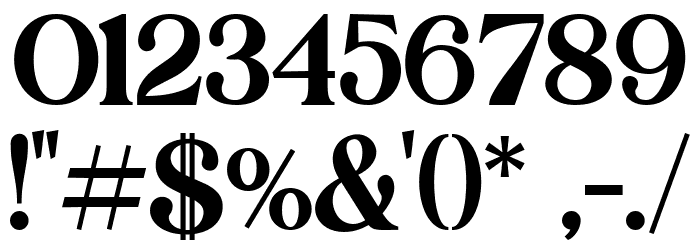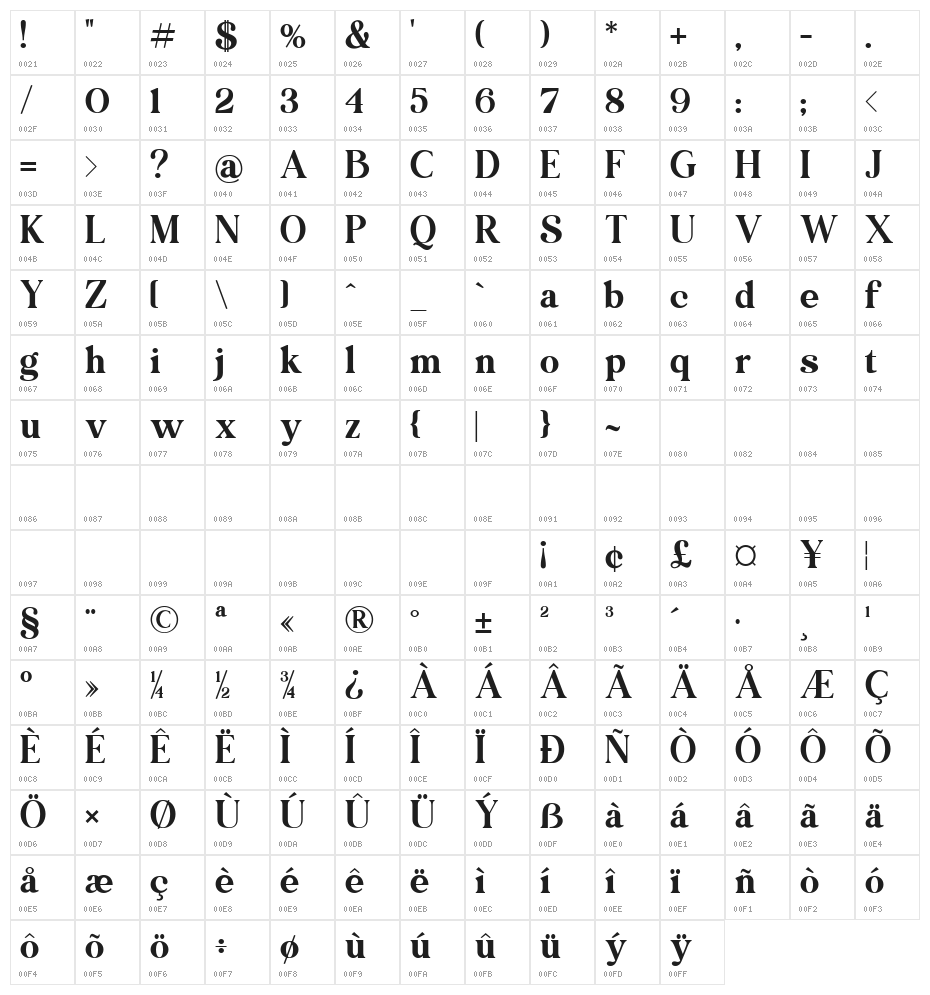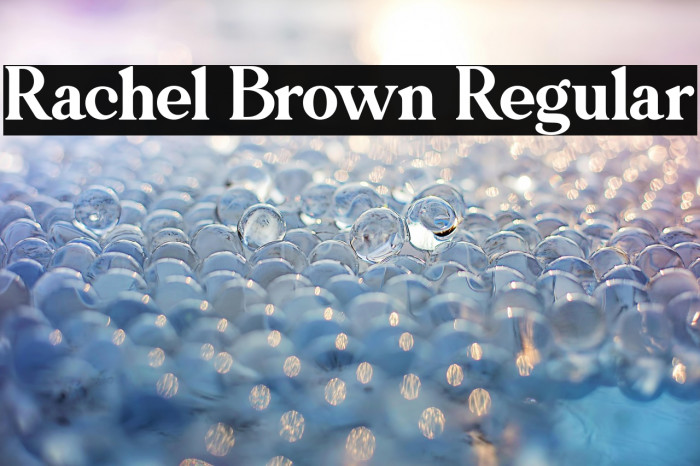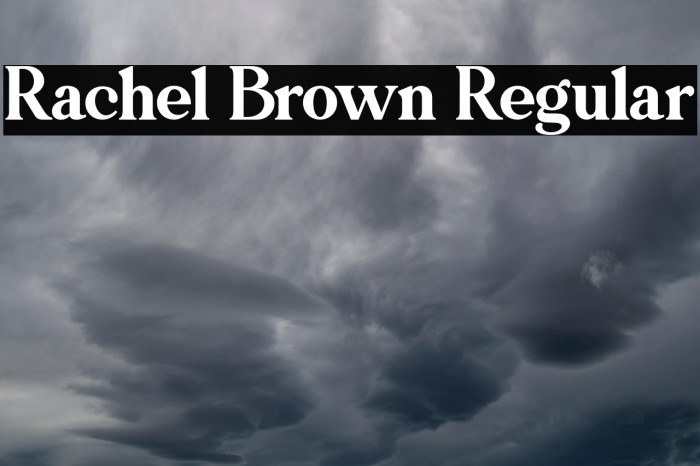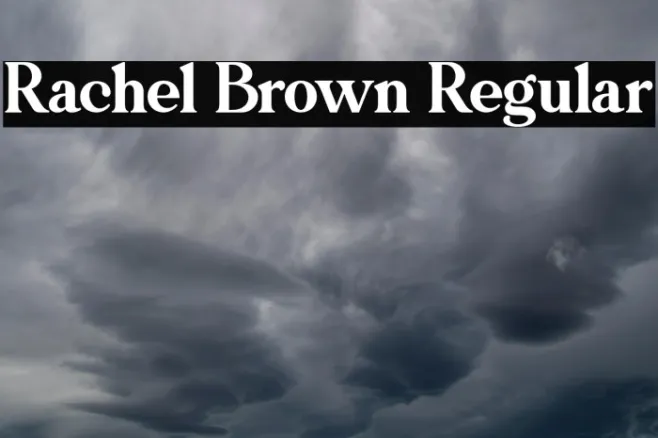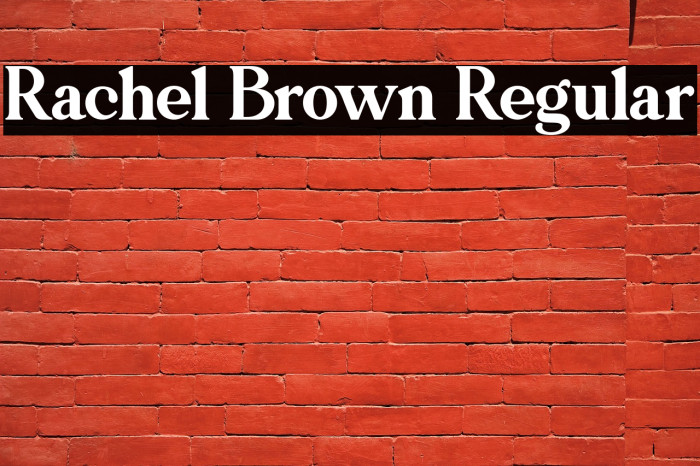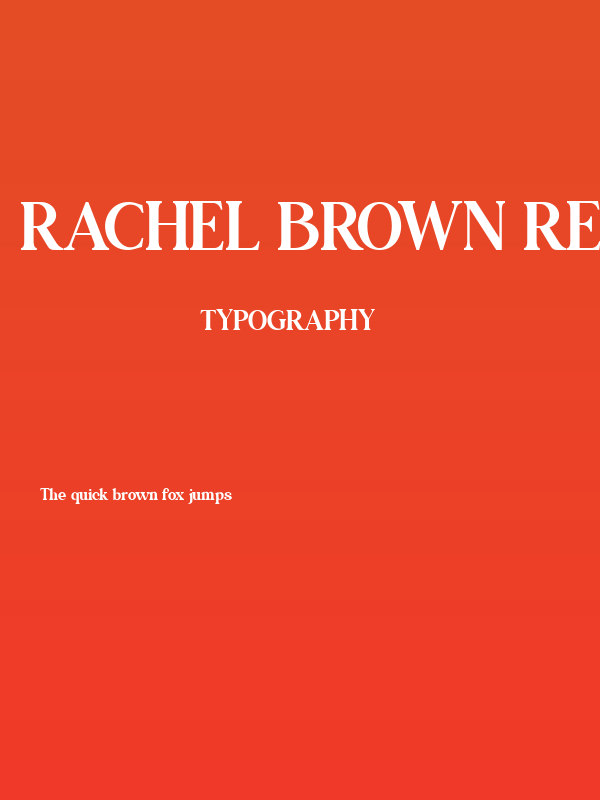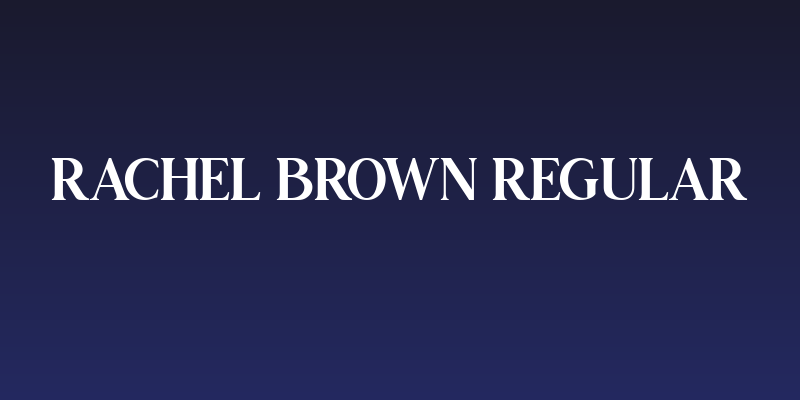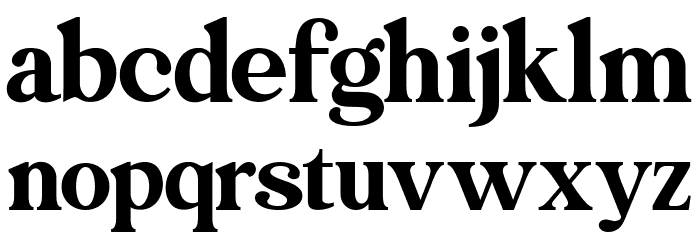
Rachel Brown Regular Font
Rachel Brown Regular Description
This font exhibits a classic serif style with a strong presence and high contrast between thick and thin strokes. The uppercase letters are bold and commanding, while the lowercase letters maintain a balanced and elegant appearance. The numerals are distinct and clear, making them suitable for various applications. Special characters are well-defined, adding to the font's versatility. The overall design is timeless, making it suitable for both traditional and modern contexts.
| Proposed Projects | Ideal for editorial design, book covers, branding, and formal invitations. |